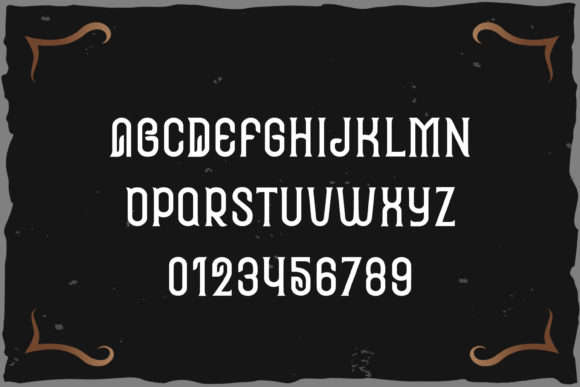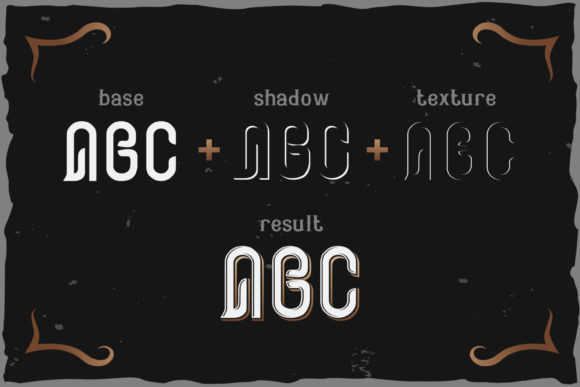
Introduction to Golden Whisky Font
Golden Whisky is a cool and vintage styled display font.
Bold and imposing, this font will be an incredibly asset to your fontsโ library, as it has the potential to elevate any creation .
Key Features of Golden Whisky Font